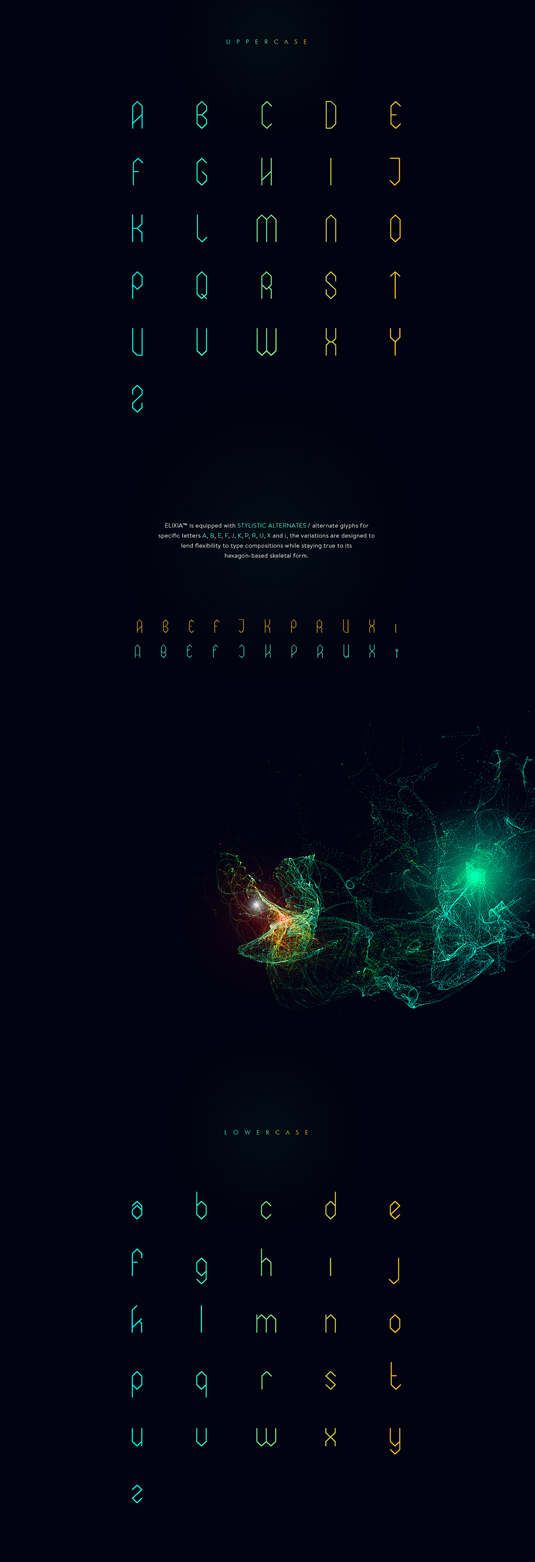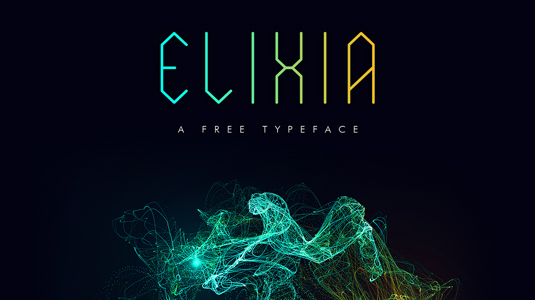
Font of the day: Elixia
Every day we showcase the best fonts on the web. Today it's Elixia by Kimmy Lee, which is free for personal use.
Elixia by Kimmy Lee
Today's typeface of choice is Elixia, a slightly condensed typeface, inspired by the hexagonal grid system. Created by artist and designer Kimmy Lee, she describes decorative display font Elixia as having a "strong vertical emphasis, with a solid, geometric feel."